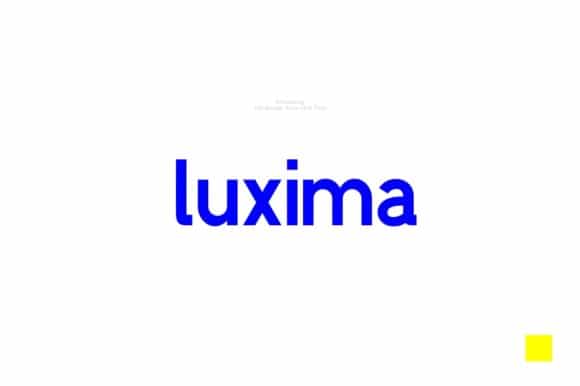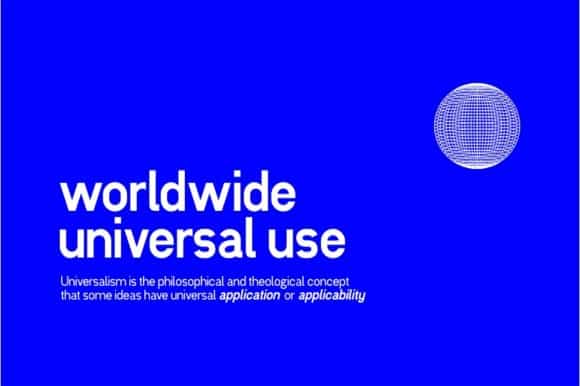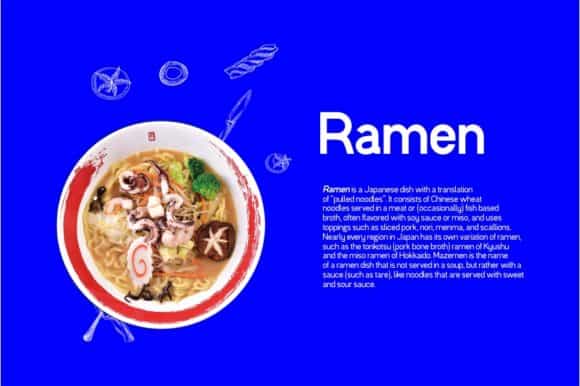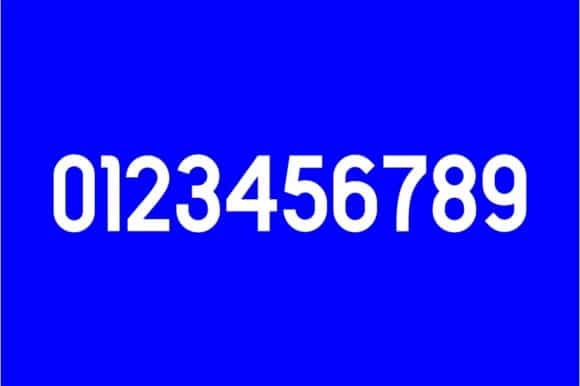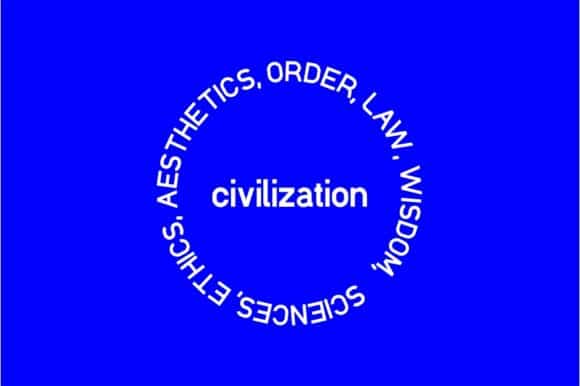
Luxima is an elegant modern condensed font. It has simple, geometric characters whose edges are softened round, all giving it a modern look. So whether you want to use this typeface envisage headings or body text for websites, digital publications and print designs; advertising leaflets large and small posters flyers longer brochure text or anything else that breaks new ground, this is just the font you’re looking for in terms of typesetting attention-grabbing designs.